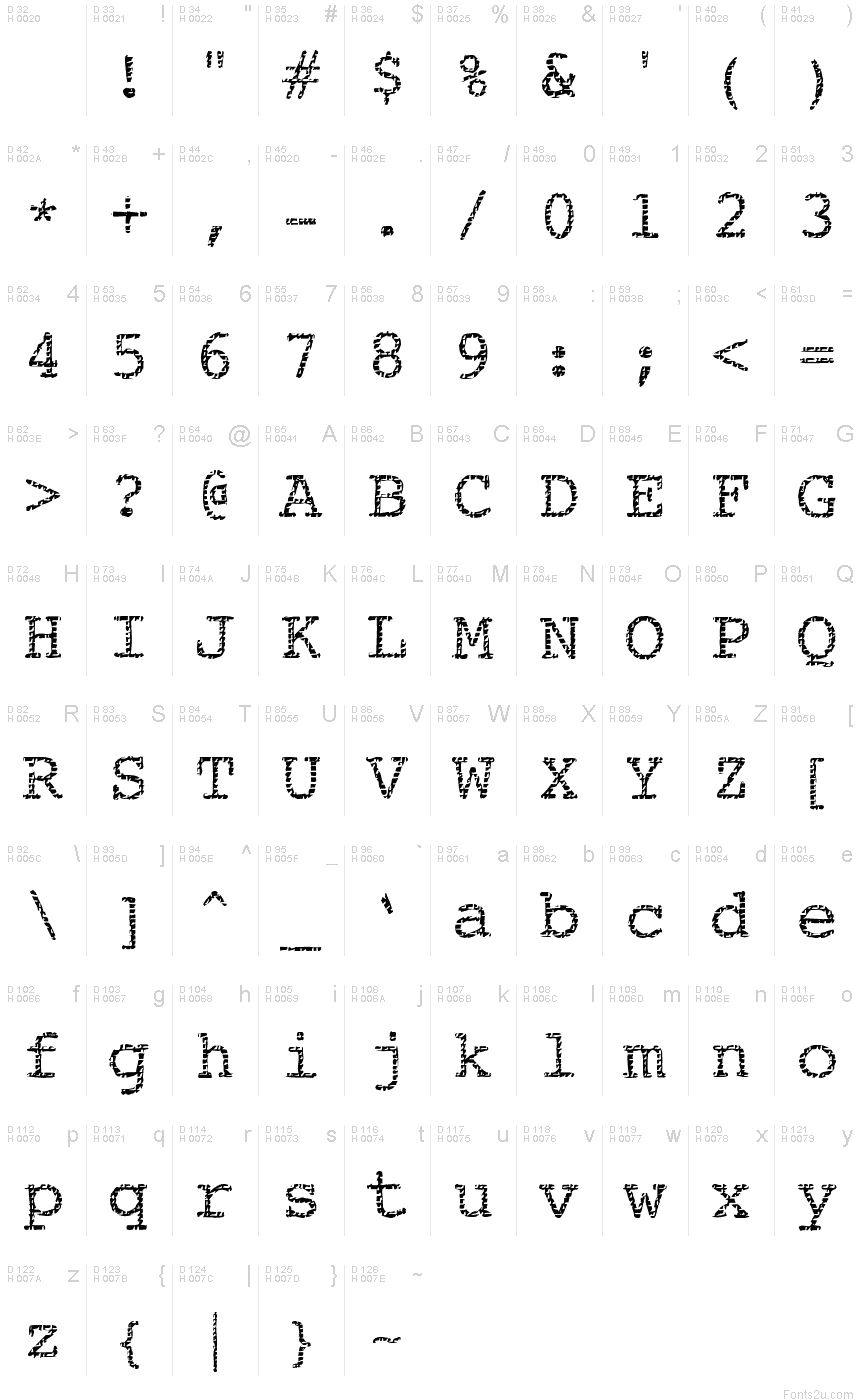
Buttzilla
Buttzilla font by Tobias Tylus is a free distressed decorative font with a scraped-up, inky texture that looks torn from an old punk flyer or battered photocopy. Its tall, jagged forms feel noisy and unruly, but the rhythm stays readable enough to make a headline hit hard instead of falling apart.
Using Buttzilla on gig posters, zines, skate graphics, horror titles, album covers, streetwear tags, and rough-edged logos gives the page a gritty, live-wire energy. Keep Buttzilla fairly large so the shredded detail can breathe, and pair this free font with a plain sans like Helvetica or Inter when you want the chaos to stand out.